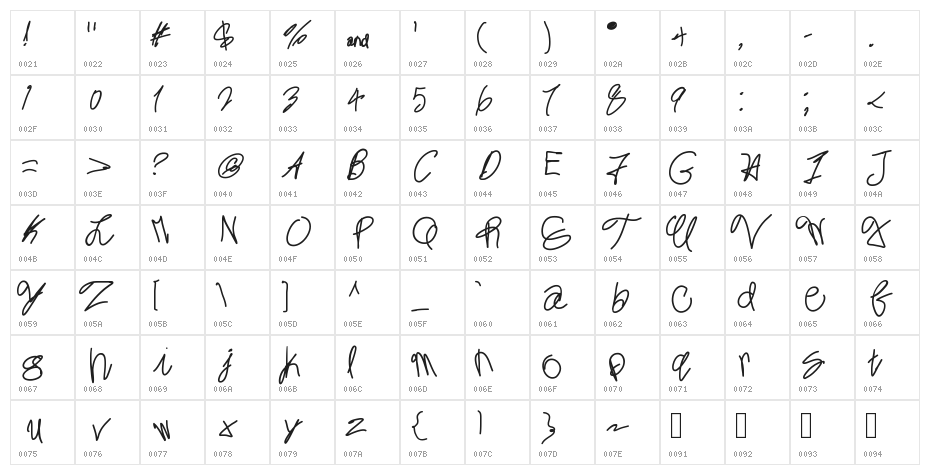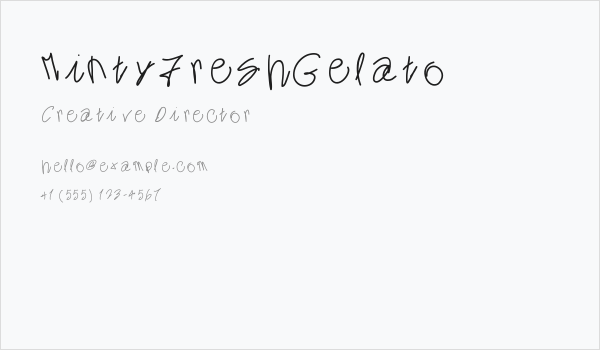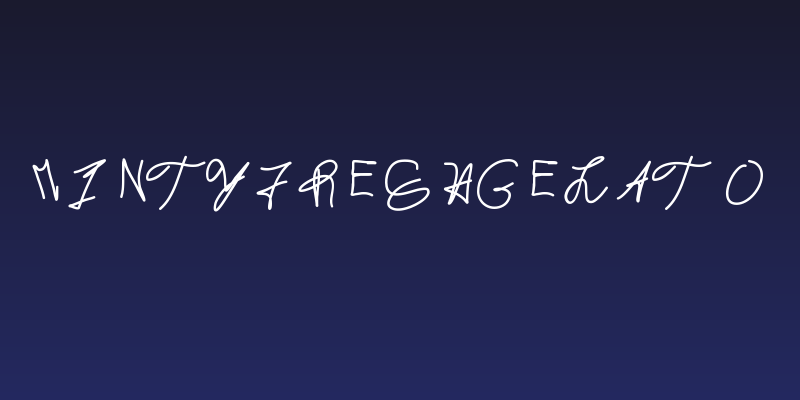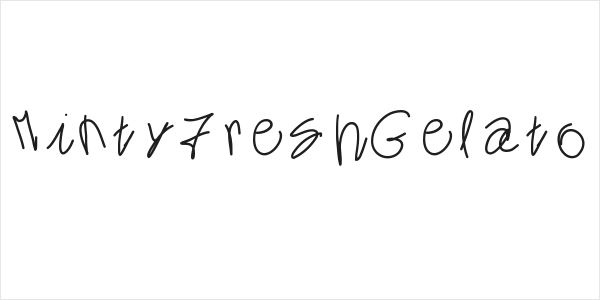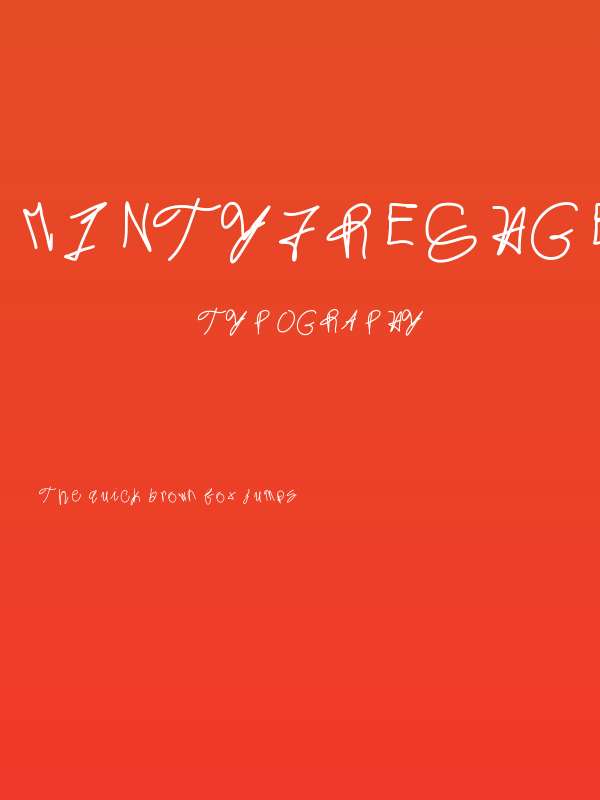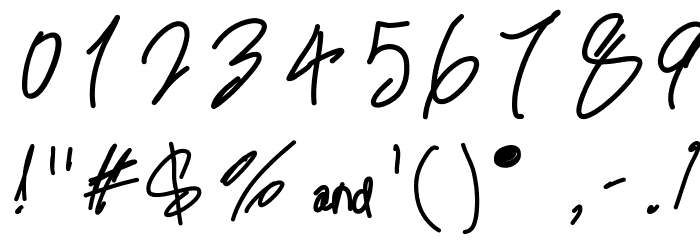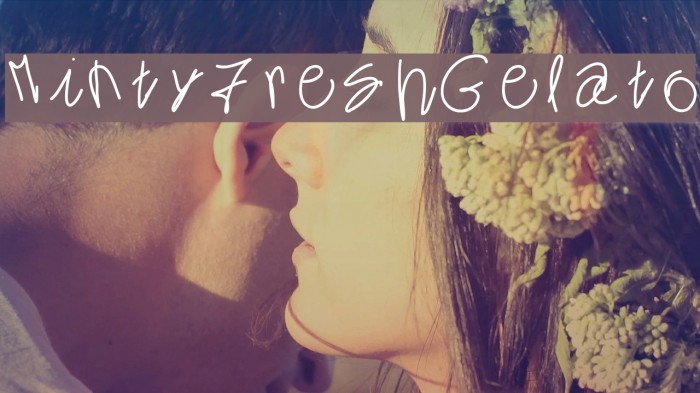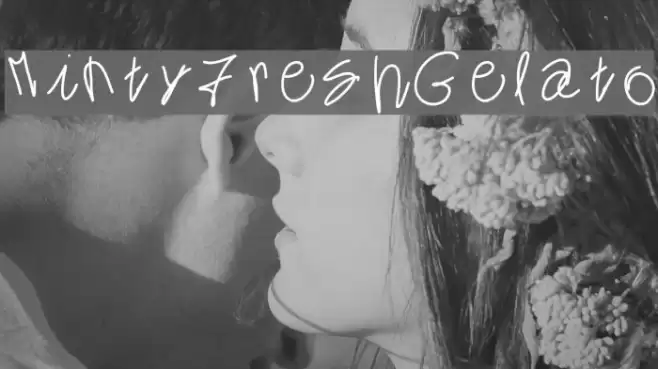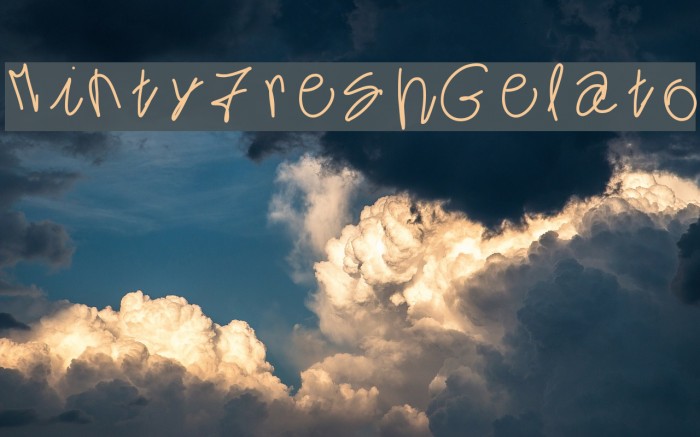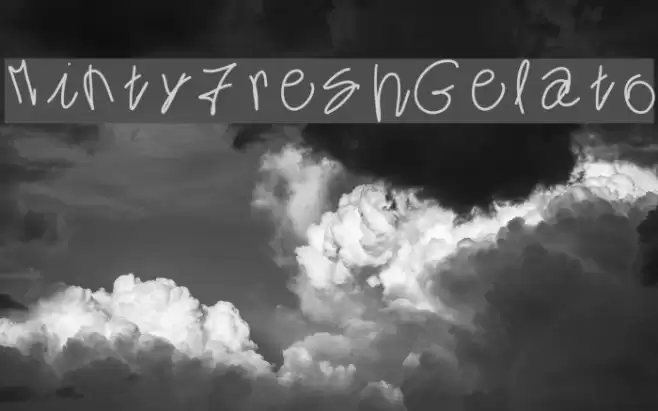
MintyFreshGelato Font
MintyFreshGelato Description
This font exudes a playful and casual vibe with its handwritten style. The letters are fluid and slightly slanted, giving a sense of movement and spontaneity. The strokes vary in thickness, adding a dynamic feel to the text. The characters are loosely spaced, enhancing the relaxed and informal appearance. This font is perfect for projects that require a personal touch, such as greeting cards, invitations, or creative branding. The numerals and special characters maintain the same lively and whimsical style, ensuring consistency across all text elements.
| Overall Style | Casual |
| Use Case | Logos, Invitations, Greeting Cards |
| Proposed Projects | Ideal for greeting cards, invitations, and creative branding. |